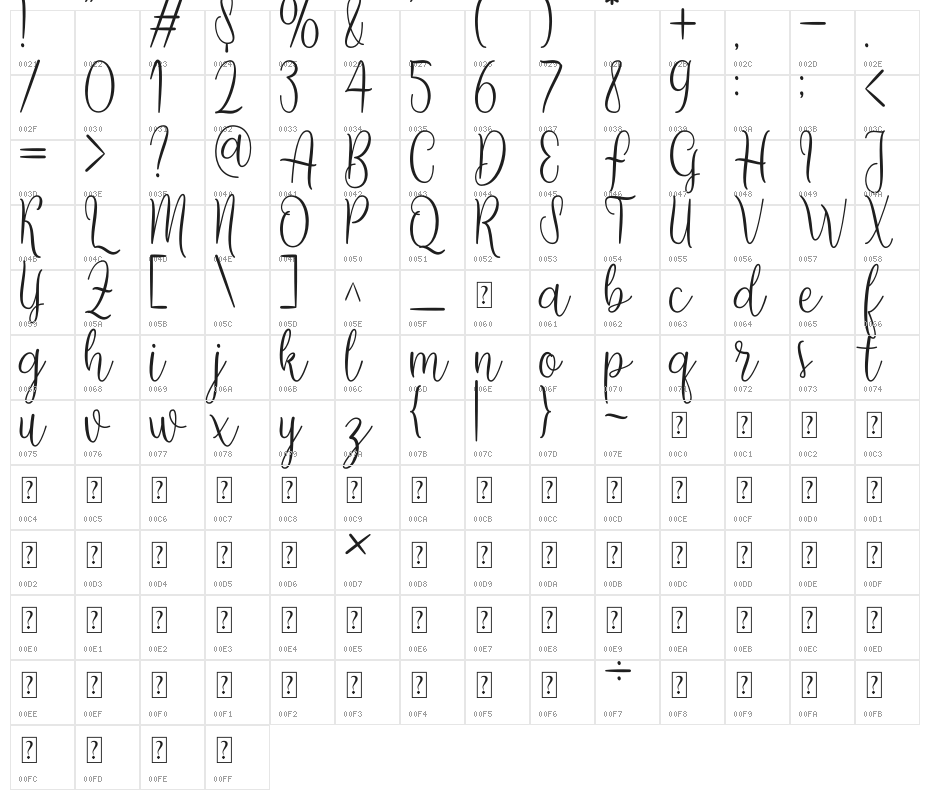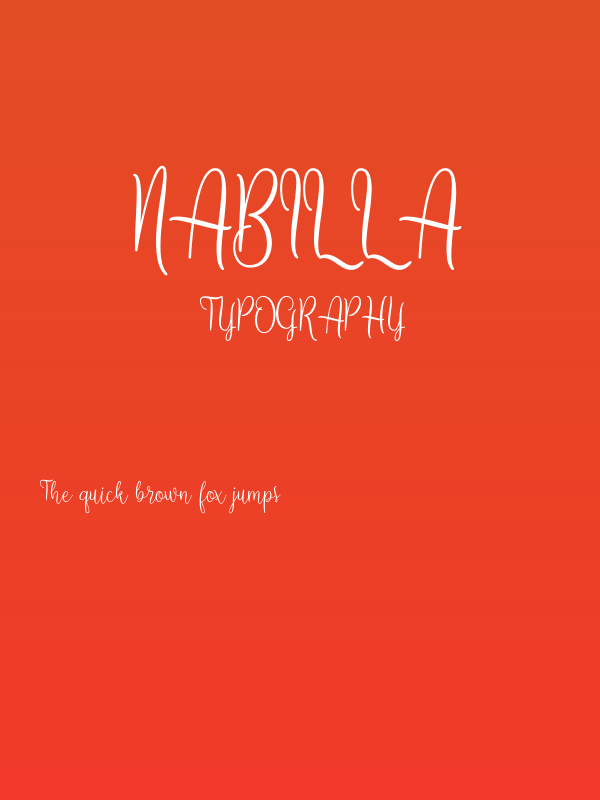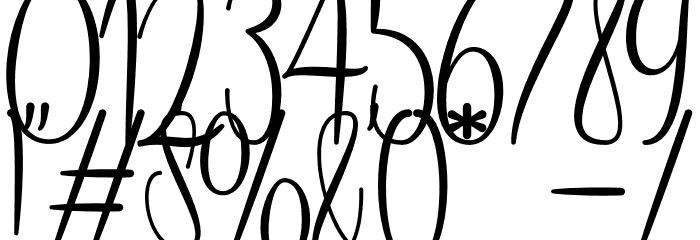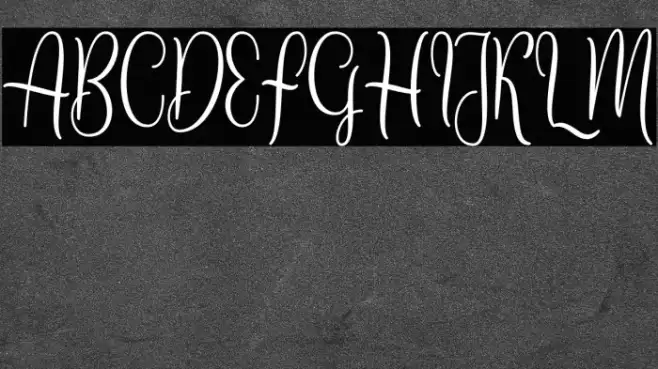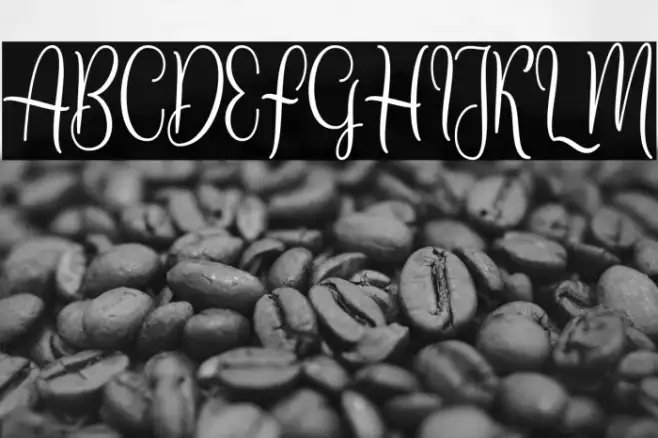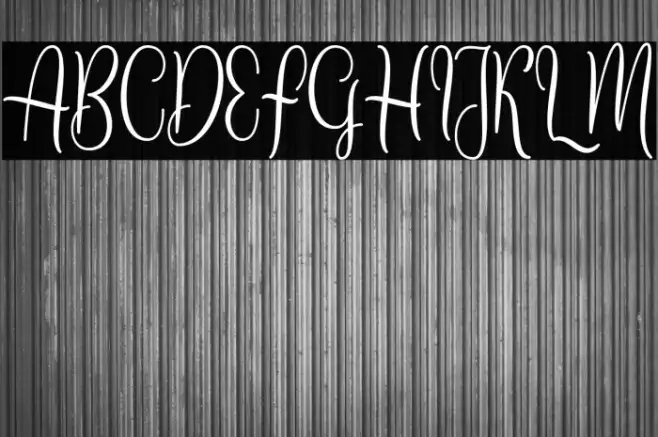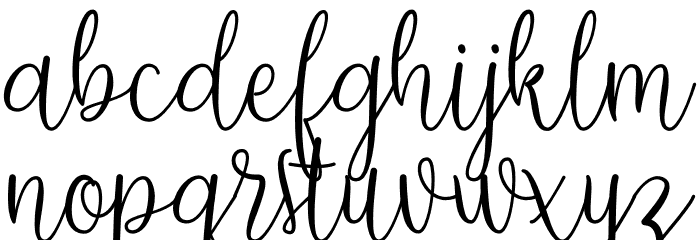
Nabilla Font
Nabilla Description
This font features a flowing, cursive style with elegant loops and swashes, giving it a handwritten appearance. The uppercase letters are tall and slender, with a consistent stroke width that adds to its graceful look. Lowercase letters maintain a smooth connection, enhancing the script's fluidity. Numbers and special characters are designed with the same attention to detail, ensuring a cohesive look throughout. The overall design is both playful and sophisticated, making it suitable for a variety of creative projects.